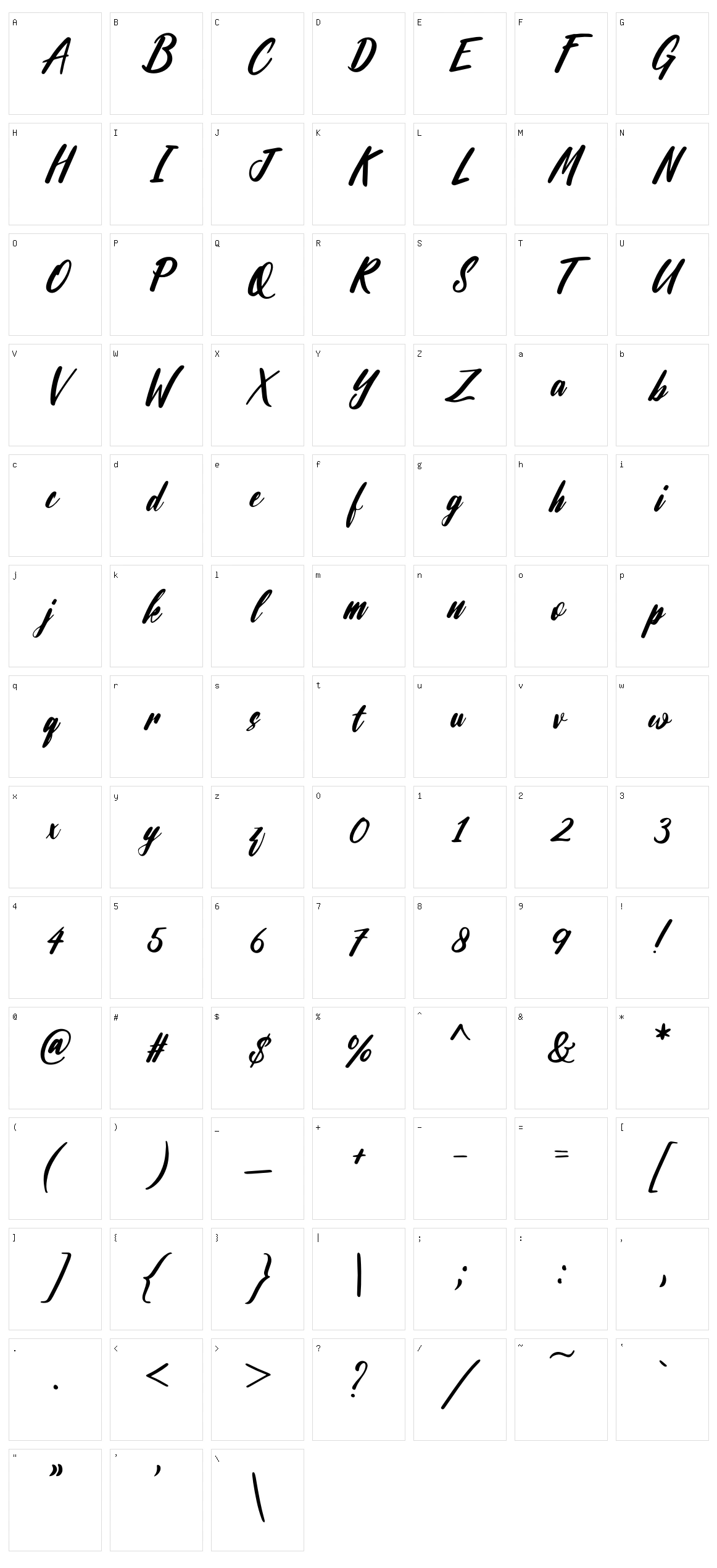
The free font Vacansa is carefully designed by Pungky Stiawan, showcasing a thoughtful balance of creativity and usability and falls under the Script font style. When you download the ZIP file, it contains only 57.13 KB of font files, making it lightweight and quick to download. Please review the license details below to understand permitted usage and distribution rights. If license information is not available, we recommend using this font for personal projects only or contacting the author directly for commercial usage permissions.